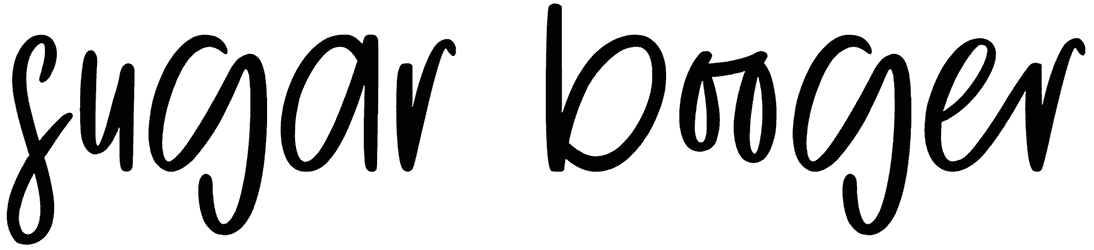
Sugar Booger Font
Experience has shown that script fonts that are more similar to the handwriting of ordinary people are more effective in communicating. Sugar Booger is one of these quote fonts that can convey your message in the simplest possible way and look very beautiful and efficient without additional decorations.
These features make this font suitable for use in any project, from the design of film credits to computer games and product packaging.